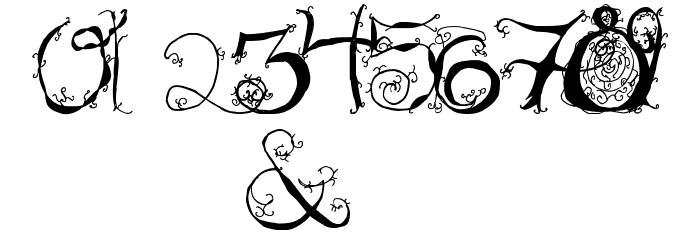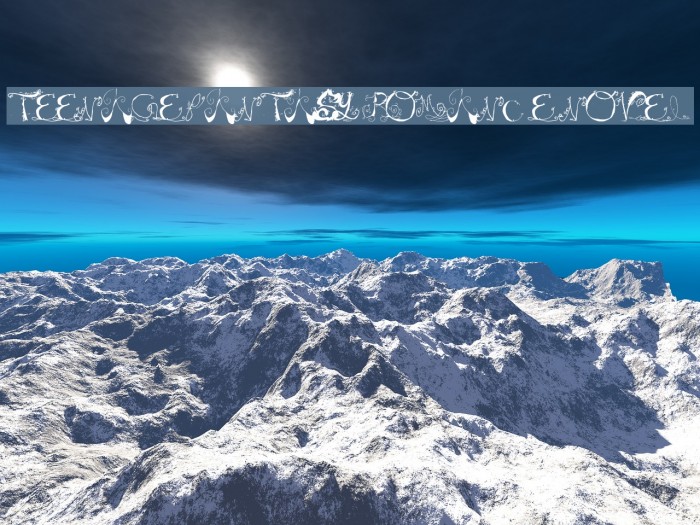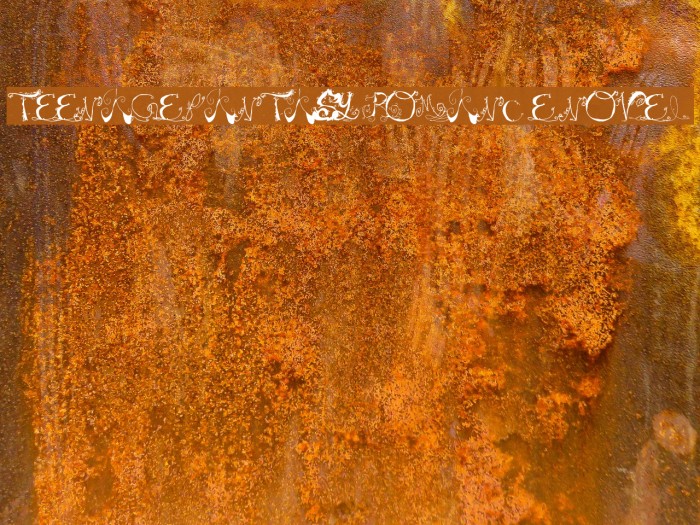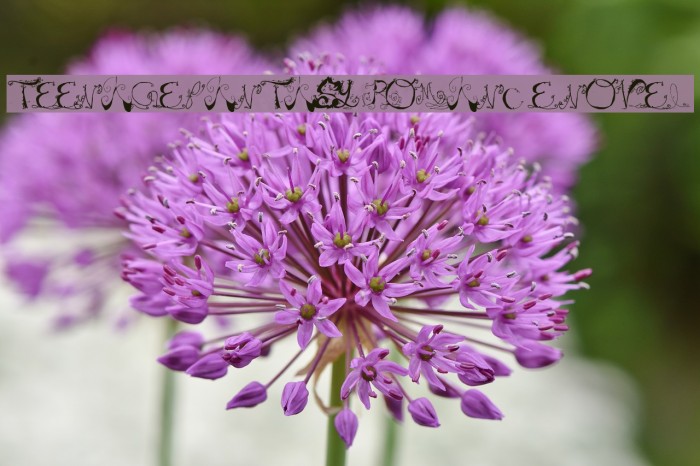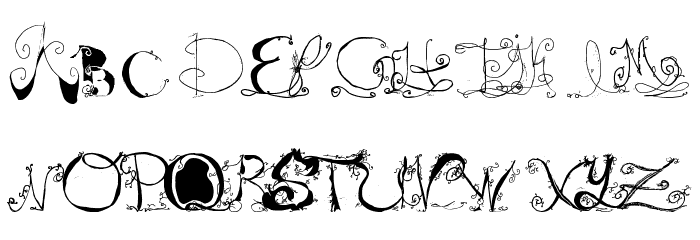
Teenage Fantasy Romance Novel Font
Teenage Fantasy Romance Novel Description
This font is an intricate and decorative typeface that features elaborate swirls and embellishments, giving it a whimsical and fantasy-like appearance. Each character is adorned with unique flourishes, making it highly stylized and visually captivating. The uppercase letters are particularly ornate, with some characters incorporating floral and vine-like elements. The lowercase letters maintain the same decorative style, ensuring consistency throughout the typeface. Numbers and special characters are equally embellished, adding to the font's overall enchanting and artistic feel. This font is ideal for projects that require a touch of fantasy and elegance.
| Overall Style | Fantasy, Decorative |
| Use Case | Headlines, Artistic projects, Invitations |
| Proposed Projects | Perfect for fantasy-themed book covers, wedding invitations, greeting cards, and artistic posters. |